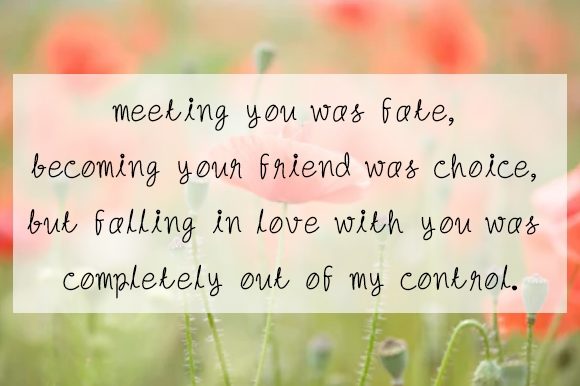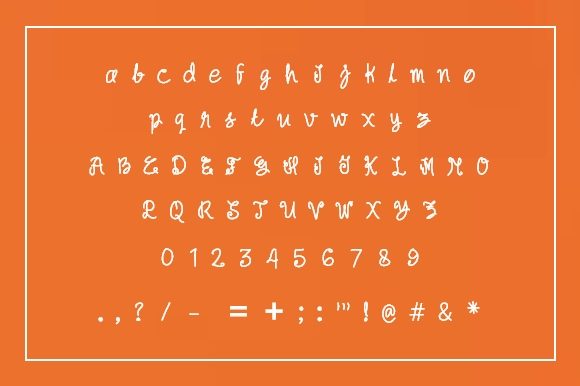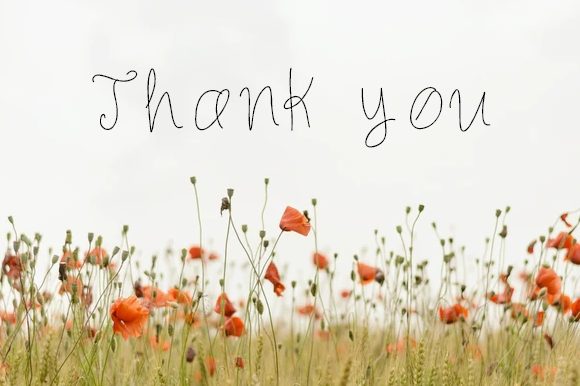
Discover the Elegance of Bagiku Font: A Timeless Handwritten Classic
In the world of typography, few fonts manage to strike a balance between timeless elegance and modern freshness. Bagiku Font is one such gem that effortlessly merges classy calligraphic influences with a contemporary vibe, making it a versatile choice for a wide range of creative projects. Whether you’re a designer looking for the perfect font for a client’s wedding invitation or a crafter seeking to add a personal touch to your handmade stationery, Bagiku Font is sure to inspire.
The Essence of Bagiku Font
Bagiku Font is a beautifully crafted handwritten font that exudes an air of sophistication and charm. Its authentic feel is reminiscent of traditional calligraphy, yet it carries a lightness and fluidity that makes it distinctly modern. This unique blend of old and new is what sets Bagiku apart, making it an excellent choice for projects that require a touch of elegance and a dash of personality.
Uses of Bagiku Font
The versatility of Bagiku Font is one of its most appealing qualities. Here are just a few ways you can use this stunning font to elevate your creative projects:
- Wedding Invitations: Create gorgeous wedding invitations that set the tone for a memorable day. The elegant and sophisticated feel of Bagiku Font makes it perfect for wedding stationery, from save-the-date cards to formal wedding invitations.
- Stationary Art: Add a personal touch to your stationery with Bagiku Font. Whether you’re designing custom notebooks, journals, or greeting cards, this font will give your creations a beautiful, handmade feel.
- Social Media Posts: Make your social media posts stand out with the eye-catching charm of Bagiku Font. Use it to create visually appealing graphics, quotes, or announcements that capture the attention of your audience.
- Greeting Cards: From birthday wishes to holiday greetings, Bagiku Font is perfect for creating cute and personalized greeting cards that come from the heart.
Why Choose Bagiku Font?
With so many fonts available, why should you choose Bagiku for your next project? Here are a few compelling reasons:
- Timeless Appeal: Unlike trendy fonts that may quickly go out of style, Bagiku Font has a timeless quality that ensures your projects will remain stylish for years to come.
- Versatility: Whether you’re working on a formal wedding invitation or a playful social media graphic, Bagiku Font adapts beautifully to any design.
- Easy to Read: Despite its elegant and cursive nature, Bagiku Font remains highly legible, making it suitable for both short phrases and longer texts.
- Authentic Feel: The font’s authentic, handwritten feel adds a personal touch to your designs, making them more relatable and engaging.
Tips for Using Bagiku Font Effectively
To make the most of Bagiku Font, consider the following tips:
- Pair with Complementary Fonts: For maximum impact, pair Bagiku Font with simpler, sans-serif fonts to create a beautiful contrast.
- Experiment with Colors: While Bagiku Font looks stunning in classic black and white, don’t be afraid to experiment with colors that match your brand or project’s theme.
- Adjust Letter Spacing: For a more customized look, adjust the letter spacing to create a flow that suits your design.
Bagiku Font is more than just a typeface; it’s a tool for creating meaningful connections through beautiful design. Its timeless elegance, versatility, and authentic feel make it an invaluable asset for designers and crafters alike. Whether you’re crafting wedding invitations, stationary art, social media posts, or greeting cards, Bagiku Font is sure to inspire your creativity and elevate your projects to new heights. So why wait? Discover the elegance of Bagiku Font today and let your designs speak with a voice that’s both classic and fresh.